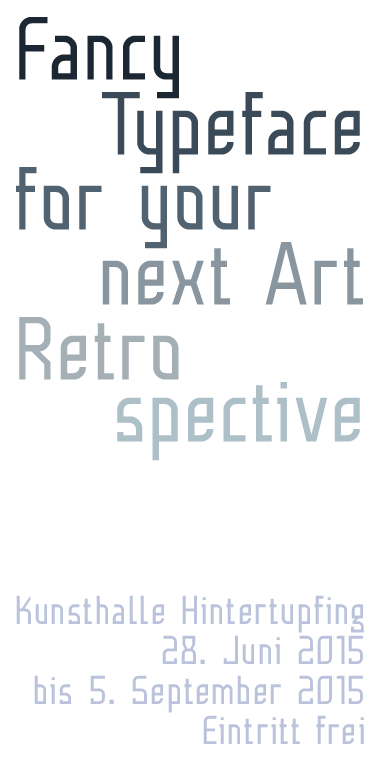
Static Grotesk
Static Grotesk is a deconstructed grotesk typeface. All angular and stuff... ;-)
Looks good. The upper diagonal of the 'K' looks a wee bit thin though.